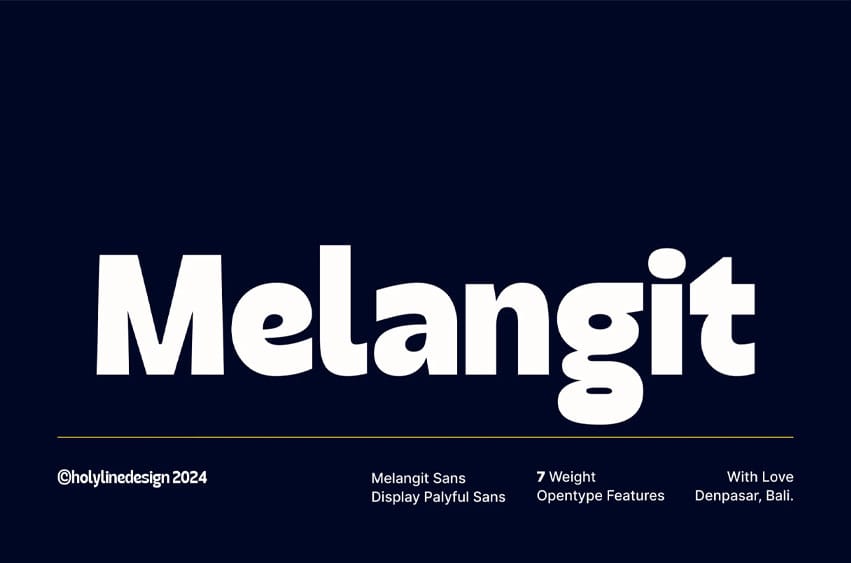
Melangit Font is a dynamic and playful sans serif display font inspired by the clean lines of modern grotesk typefaces. With its contemporary design, it’s perfect for magazine layouts, bold headlines, and creative typography. The font features 7 weights, ranging from thin to bold, offering versatility for a wide range of design projects.
It also includes alternates, enabling designers to effortlessly create smooth curves and elegant shapes, achieving eye-catching results with ease. Whether you’re crafting standout branding, editorial designs, or striking typographic compositions, Melangit Sans delivers modern sophistication with a playful edge.